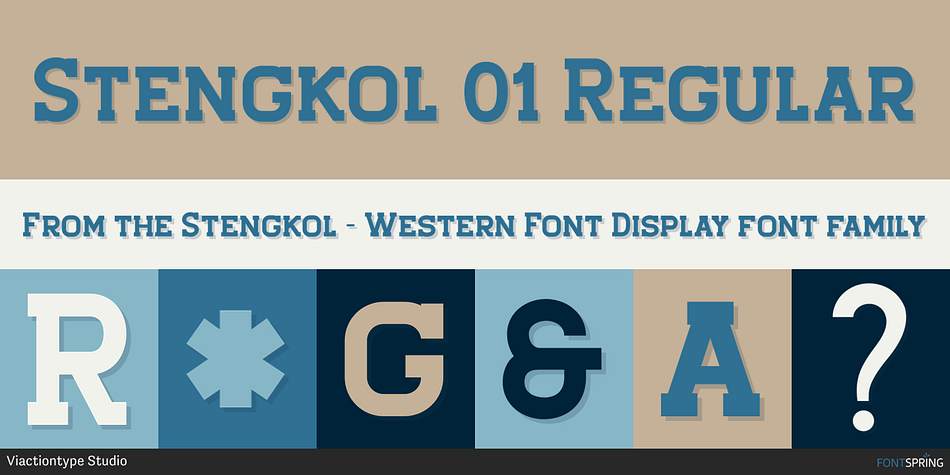
Stengkol 01 Regular
Designed by Lukman Hdayat, Stengkol is a western font family. This typeface has twenty styles and was published by Viactiontype Studio.
Introducing the Stengkol Font Family: A Versatile Slab Serif Font Pack with a Cowboy-Themed Bonus!
Elevate your design projects with the Stengkol Font Family, a comprehensive collection of 20 unique fonts that combines modern slab serif aesthetics with a touch of rustic cowboy charm. This font family is not just a typography tool—it’s a complete design solution, perfect for creating eye-catching visuals across a variety of mediums. Whether you’re designing t-shirts, merchandise, posters, quotes, tickets, logotypes, or more, Stengkol delivers unmatched versatility and style.
What’s Included in the Stengkol Font Family?
- 20 Fonts in One Pack: Enjoy a wide range of font styles, including layered fonts, to add depth and dimension to your designs.
- Cowboy-Themed Bonus Illustration: Enhance your projects with exclusive cowboy-themed illustrations that perfectly complement the Stengkol fonts.
- Complete Character Sets: Each font includes uppercase, lowercase, numerals, punctuation, and multilingual support, ensuring compatibility with global design needs.
- Easy to Use: Seamlessly combine multiple fonts within a single design for a cohesive and professional look.
Why Choose Stengkol Font Family?
- Perfect for Branding: Ideal for creating bold and memorable logotypes, merchandise, and promotional materials.
- ersatile Applications: From t-shirt designs to posters, quotes, and tickets, Stengkol adapts to any creative project.
- Cowboy Aesthetic: The included bonus illustrations add a unique, thematic flair to your designs, making them stand out.